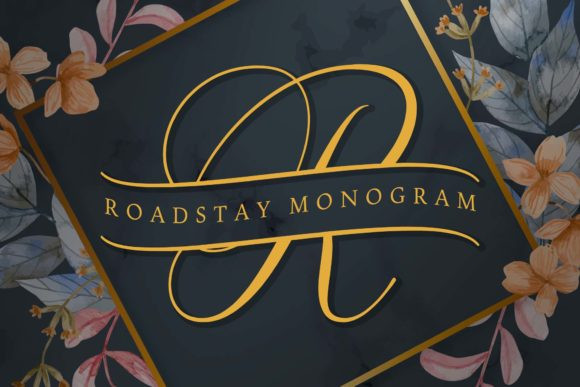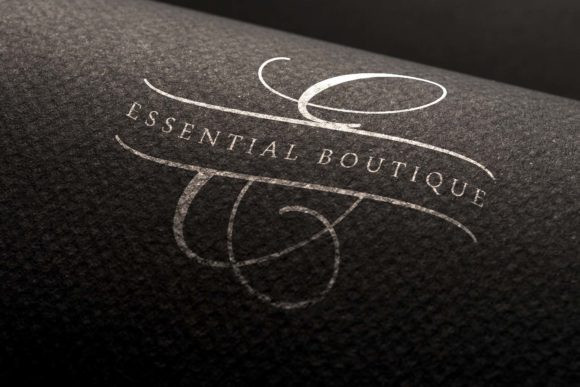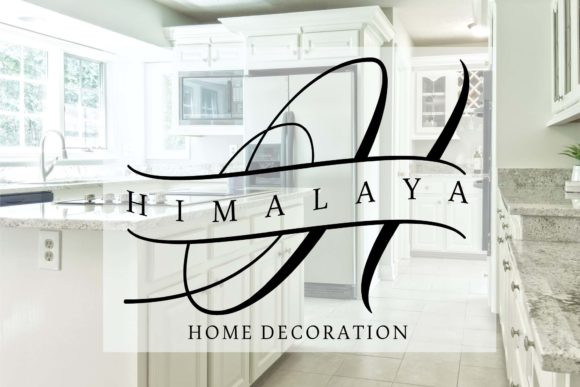
Roadstay Font
Roadstay is an elegant monogram script font. It features an incredibly classic style, while still keeping a friendly feel. Roadstay is the perfect font for making original and outstanding designs. Fall in love with its authentic feel and use it to create gorgeous wedding invitations, beautiful stationary art, eye-catching social media posts, and cute greeting cards.